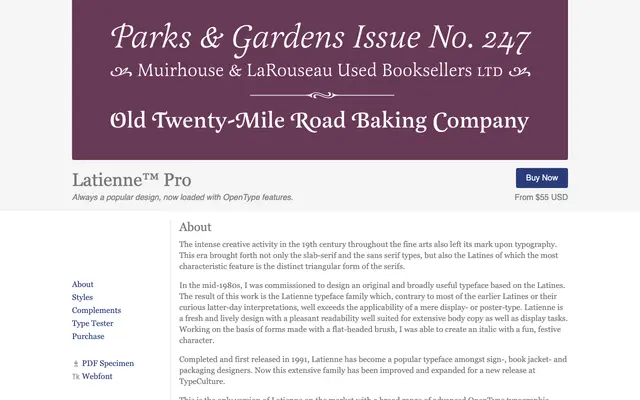
Latienne™ Pro
Type Culture · 1991
A typeface rooted in the 19th-century Latine genre, distinguished by triangular serifs and a brush-drawn italic, updated with an extensive OpenType feature set.
Originally completed in 1991 and based on the Latine typographic tradition, the design uses triangular serifs as its defining feature while remaining legible enough for body copy as well as display settings. The italic was drawn from flat-headed brush forms, giving it a festive, lively quality distinct from the roman. The Pro release adds a broad range of OpenType features including small caps, multiple figure styles, swash caps and fractions, making it the most feature-complete version available.
Latienne Pro belongs to the Latines, a 19th-century typographic genre defined by distinctive triangular serifs. While the designer notes it exceeds typical display or poster use, its Latine heritage places it firmly in the display category with a decorative serif subcategory.